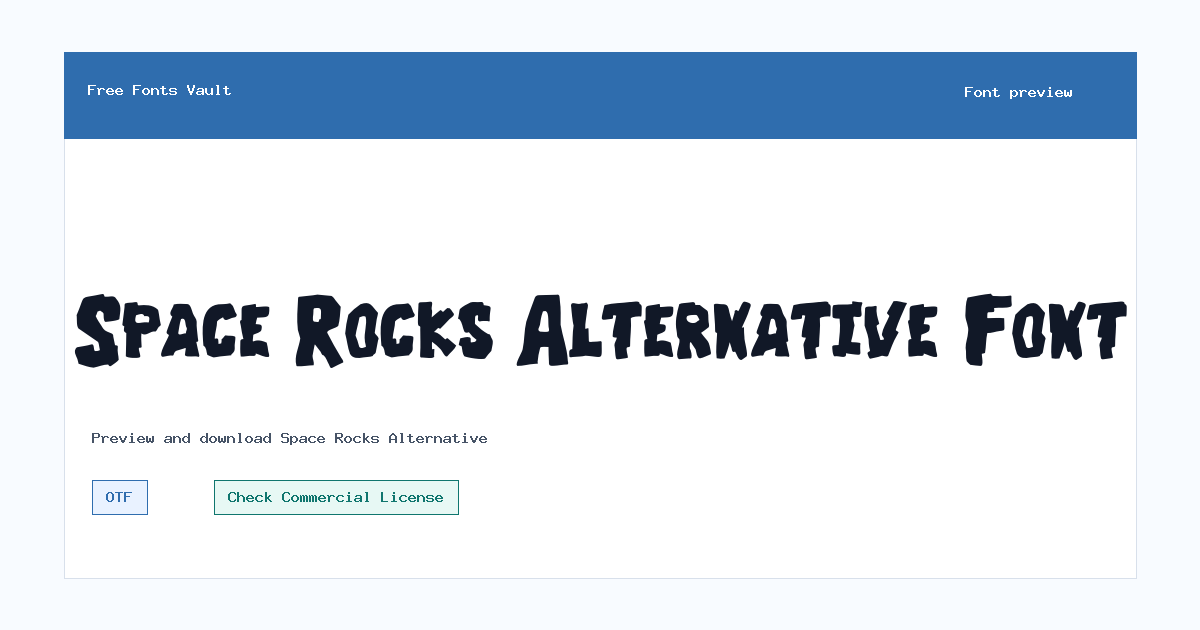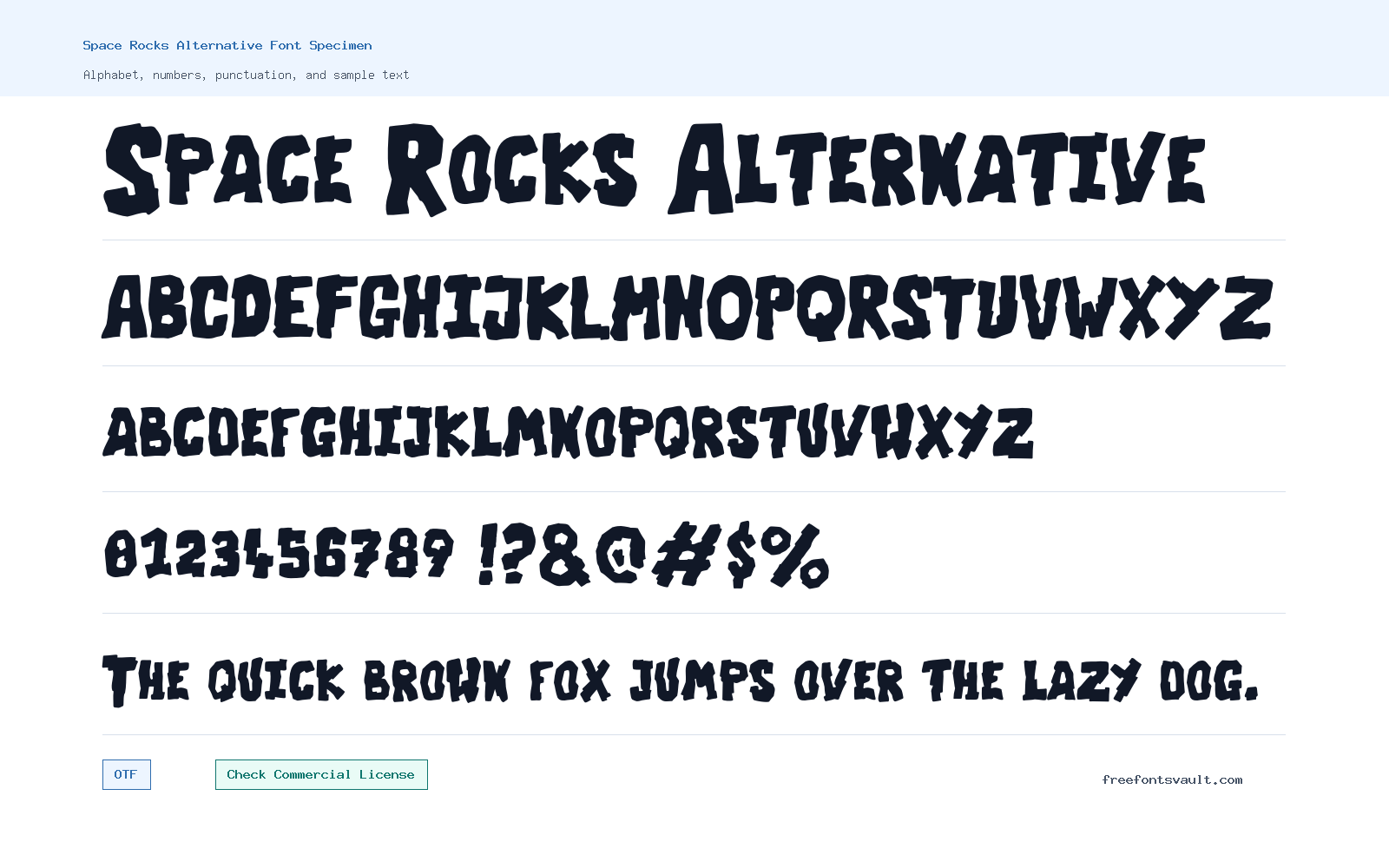
Space Rocks Alternative
Space Rocks Alternative Font
Space Rocks Alternative is a display font with a bold, playful name that points toward sci-fi, space, and poster-style design uses.
About Space Rocks Alternative
Space Rocks Alternative is best approached as a decorative display typeface rather than a long-reading text font. Its name and presentation make it a natural fit for projects that need a space-themed or energetic headline style, such as event titles, game graphics, stickers, thumbnails, and short promotional text.
Use the preview tool to test your exact words before downloading, especially if your design depends on numbers, punctuation, or mixed-case lettering. For cleaner layouts, pair it with a simple sans serif for body copy and keep Space Rocks Alternative for short titles, logos, badges, or accent text where the font’s personality can stand out without hurting readability.
Space Rocks Alternative is a decorative display font with a name that points toward sci-fi, arcade, and poster-style design. It is not meant to disappear into a paragraph. Use it when the lettering itself should become part of the visual style, such as a game title, event graphic, album concept, or bold social banner.
• Designed for short display text, titles, and visual accents
• Sci-fi, space, arcade, or game-inspired headings
• Posters, stickers, thumbnails, badges, and short branding text
Space Rocks Alternative is credited to Christopher King and Wingsart Studio.
Try it at the size you plan to use. Decorative display fonts often work best in larger text, with extra spacing and a plain companion font for paragraphs or small UI labels. Preview the real words before committing, because display fonts can change personality from one phrase to another. Keep supporting copy simple, and check the license carefully before using it in paid or client-facing projects. A decorative space-themed font often looks best when the layout leaves room around the word.
Who designed Space Rocks Alternative?
The font is credited to Christopher King, with Wingsart Studio listed as the foundry.
What is Space Rocks Alternative best used for?
It is best suited for short display text such as posters, game-style graphics, stickers, thumbnails, and space-themed headings.
Should I use this font for paragraphs?
It is safer to use it for headings and accents. For paragraphs, pair it with a simple, readable text font.
Where does Space Rocks Alternative work best?
It works best in short display settings such as posters, title art, game graphics, stickers, and themed headings.